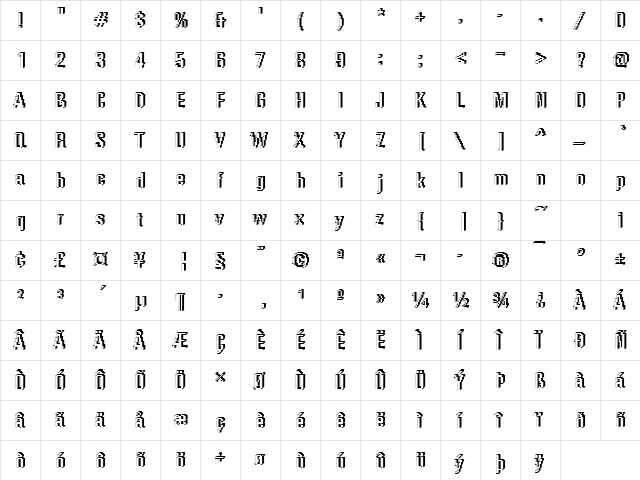
Rough56 Becker Regular
Design Context for Rough56 Becker Typeface
Rough56 Becker trades polish for personality, using distressed and eroded forms to bring grit and attitude to creative work.
Suited to punk-influenced zines, underground music branding, streetwear, and raw, anti-corporate design.
Pro Tip: Pair Rough56 Becker with intentionally raw or lo-fi design elements. Fighting against it with overly polished surroundings will undermine its personality.